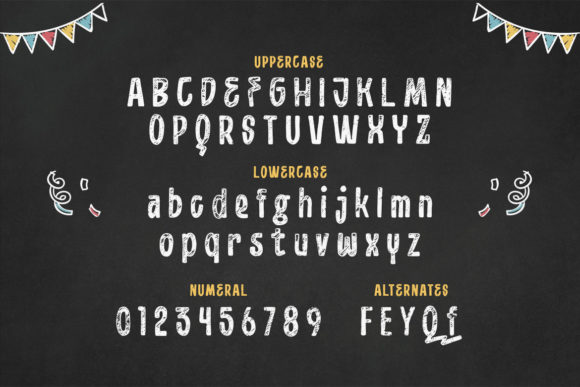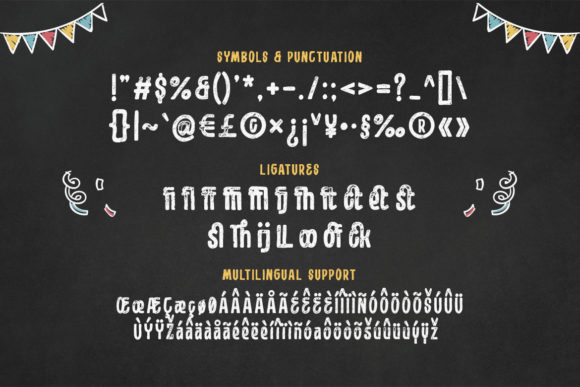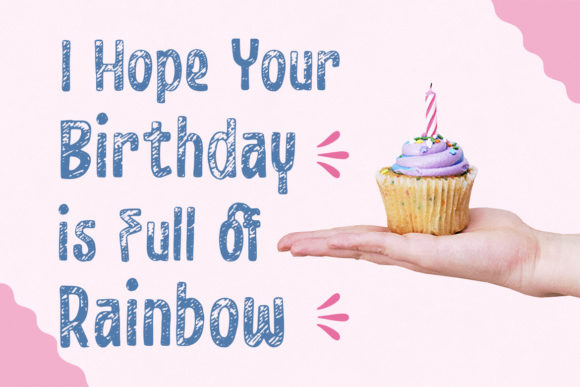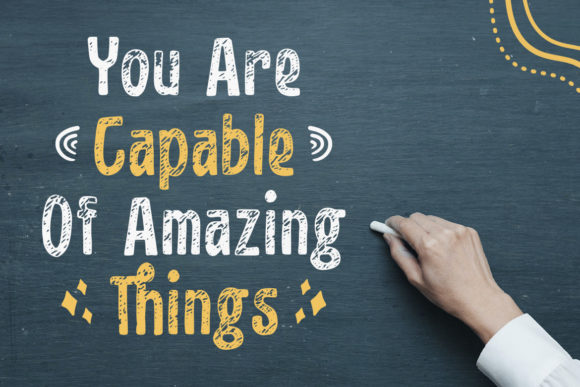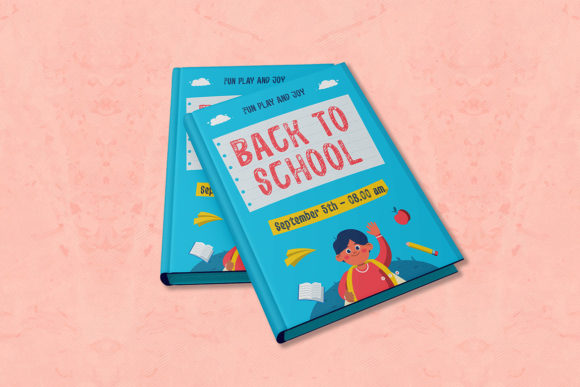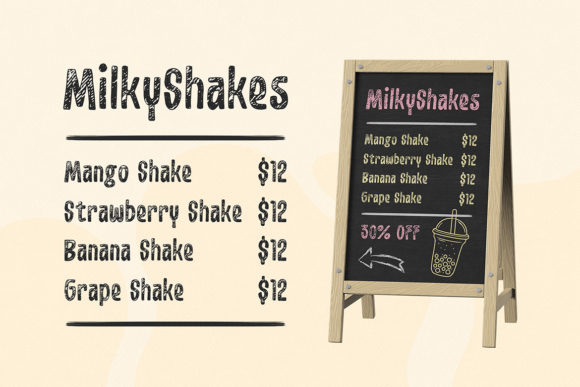
The Perfect Font for a Playful Touch
Remember the feeling of standing in front of a chalkboard, surrounded by vibrant colors and creative energy? The smell of chalk and the sound of laughter as you bring your ideas to life? For designers and creatives, moments like these are what spark inspiration.
That’s why we’re excited to introduce the Chalkdraw Font, a fun and casual display font designed specifically for kids, playground, or school themes. Whether you’re crafting, creating playful restaurant menus, or designing digital content, this font adds a perfect touch of whimsy and personality. The Chalkdraw Font is a valuable addition to any designer’s toolkit, offering a unique and versatile way to add a playful twist to your projects.
With its charming and carefree design, the Chalkdraw Font is sure to bring a smile to the faces of your audience, making it a must-have for designers looking to add a touch of fun and creativity to their work.
Key Features of Chalkdraw Font
- Font Family: Chalkdraw
- Character Count: 600+ glyphs, including Latin, Cyrillic, and Greek alphabets
- Unique Characteristics: Hand-drawn, chalkboard-inspired design with subtle texture and imperfections, perfect for creative and educational projects
Chalkdraw Font Review
Overall, I think Chalkdraw Font is a decent addition to any designer’s toolkit. It’s a fun, playful font that’s perfect for creating eye-catching titles and headings.
- ✨ Unique and quirky design: Chalkdraw Font has a very distinctive look that’s sure to grab attention.
- ✨ Versatile: It can be used for both modern and vintage-inspired designs.
- ✨ Easy to read: Despite its playful nature, the font is still easy to read, even at smaller sizes.
- ⚠️ Limited character set: While the font looks great for titles and headings, it may not be suitable for large blocks of text.
- ⚠️ Not ideal for body copy: The font is too ornate for regular text, and may be difficult to read in large quantities.
In conclusion, Chalkdraw Font is a fun and creative addition to any designer’s toolkit. While it may have some limitations, it’s perfect for creating eye-catching titles and headings. Just be sure to use it sparingly and in the right context.
Chalkdraw Font is ideal for creating playful, rustic, and vintage designs. Use it for:
– Handwritten-style quotes and phrases.
– Distressed or worn-out text effects.
– Whimsical and creative illustrations.
– Retro-themed designs and graphics.
What is the character set for Chalkdraw Font?
Chalkdraw Font includes a wide range of characters, including Latin, Greek, Cyrillic, and many special characters. The font includes over 800 glyphs, including accented characters, punctuation, and symbols. Please refer to the font’s documentation or website for a detailed list of supported characters.